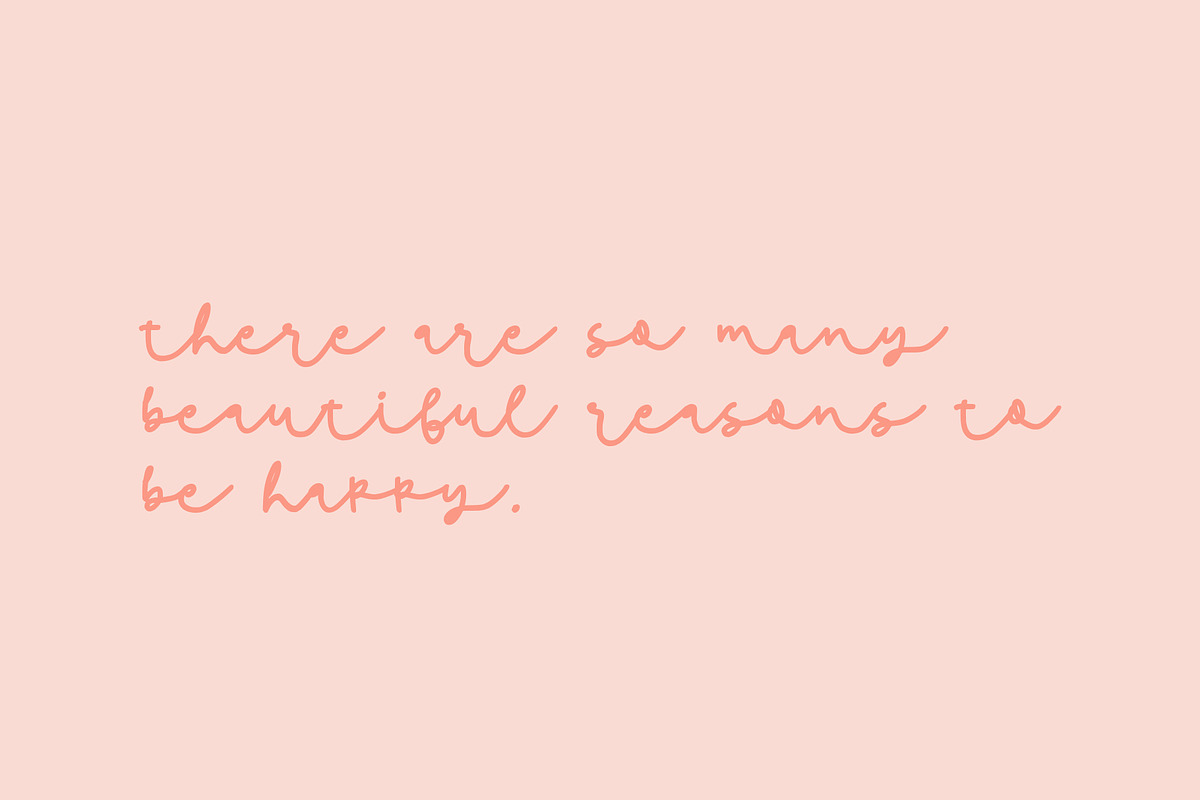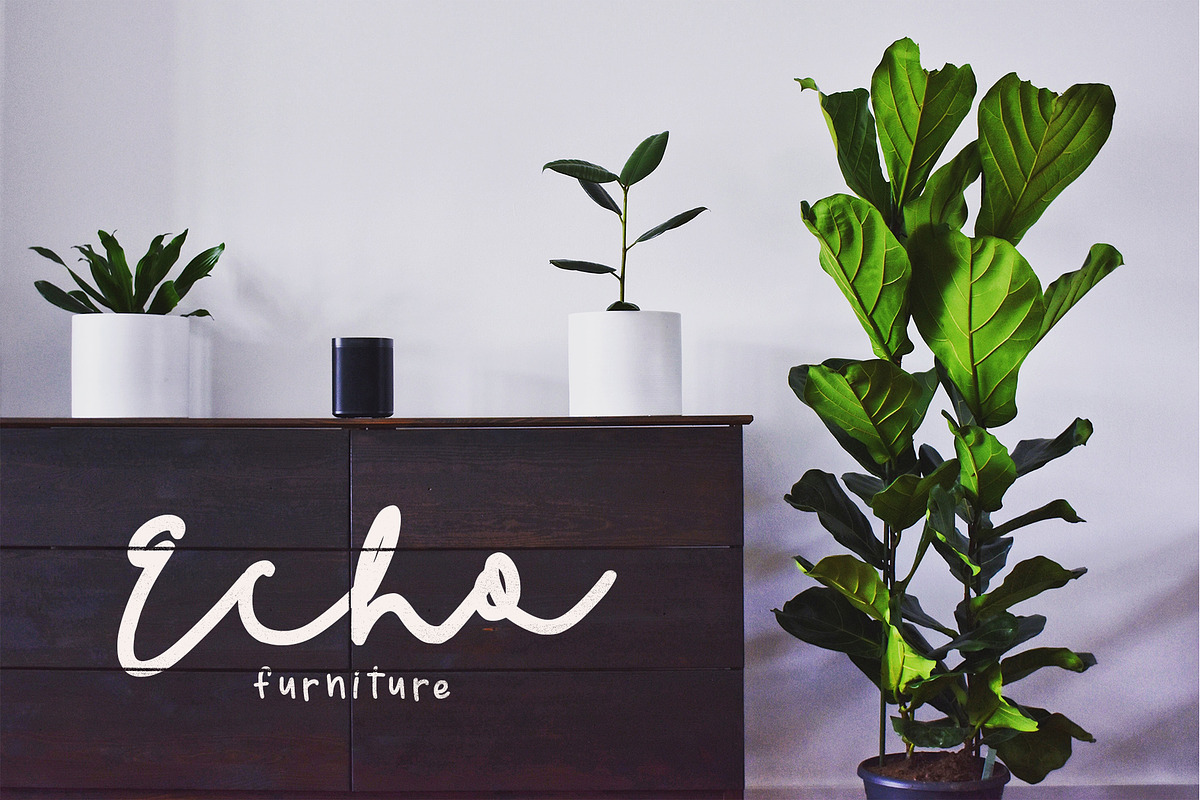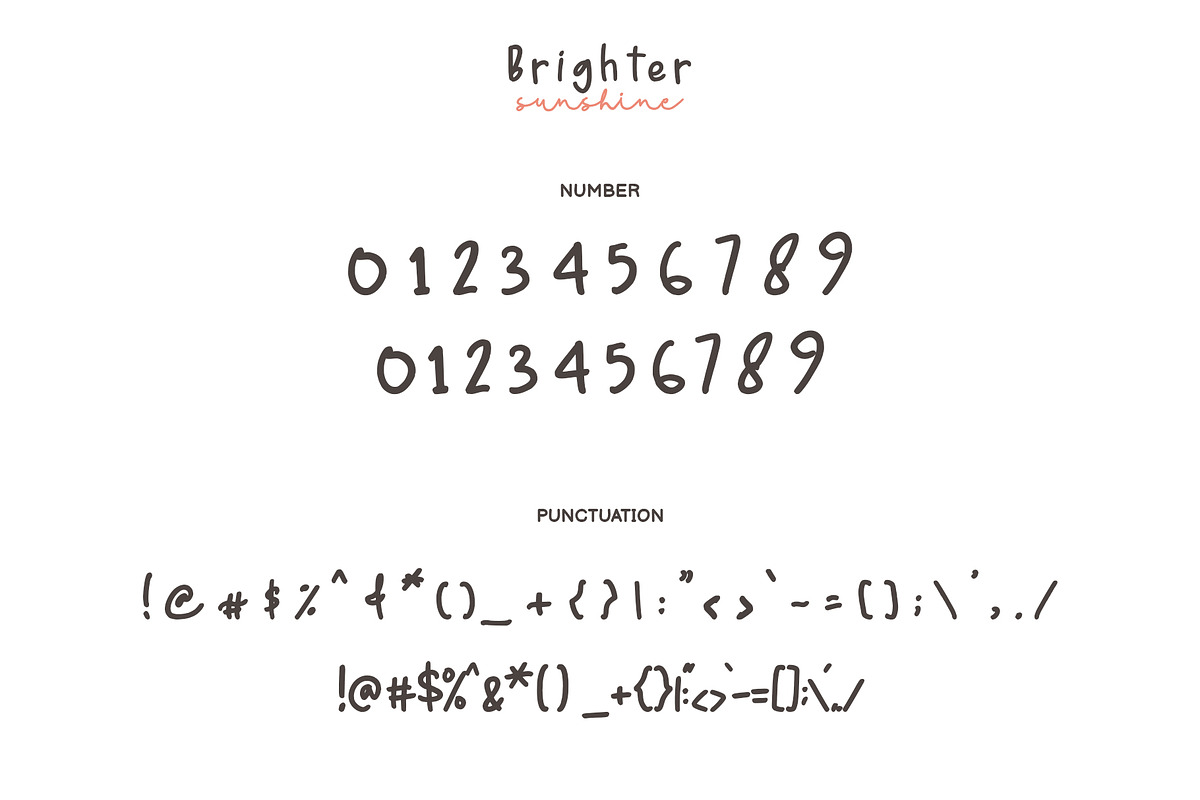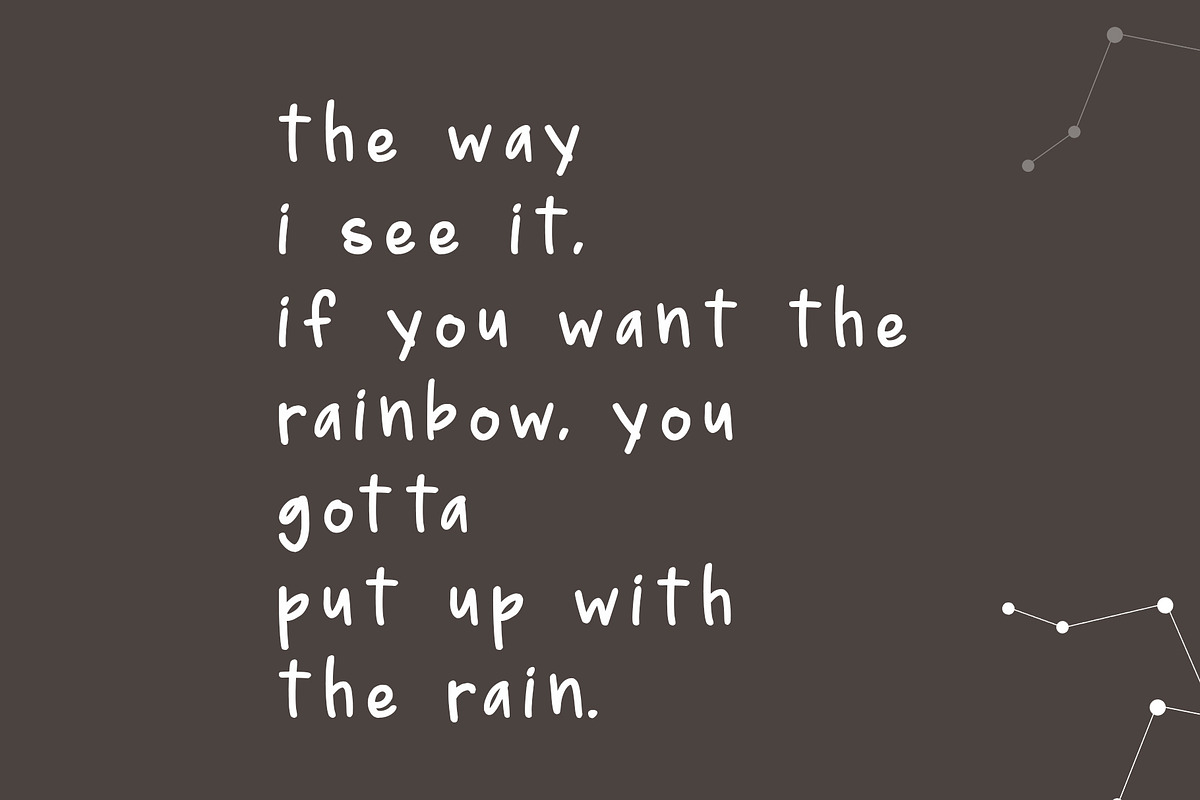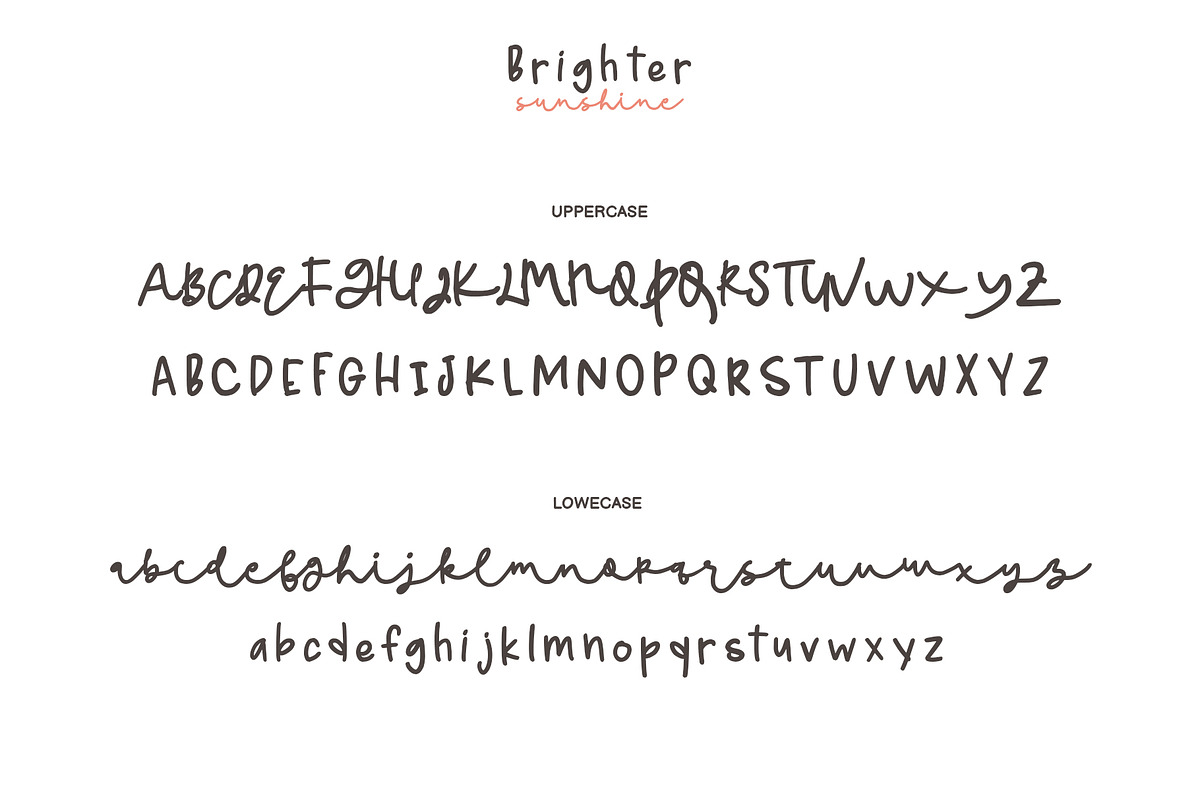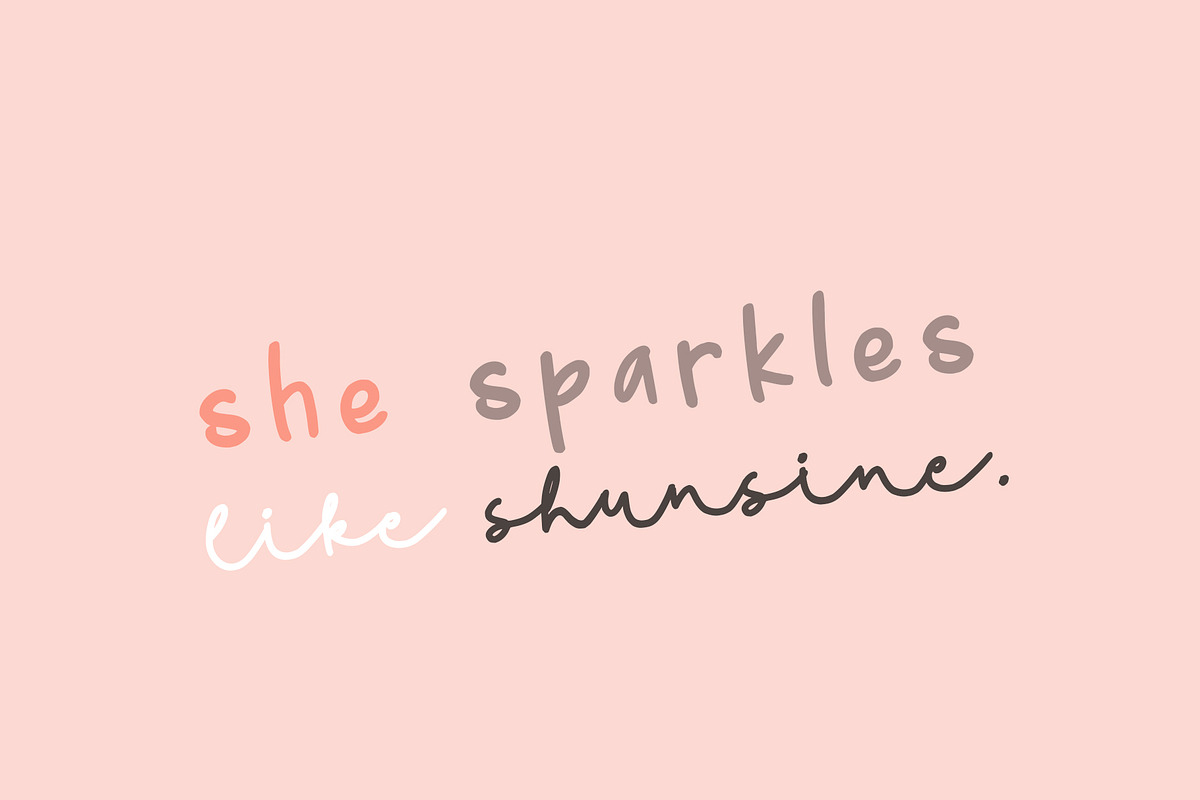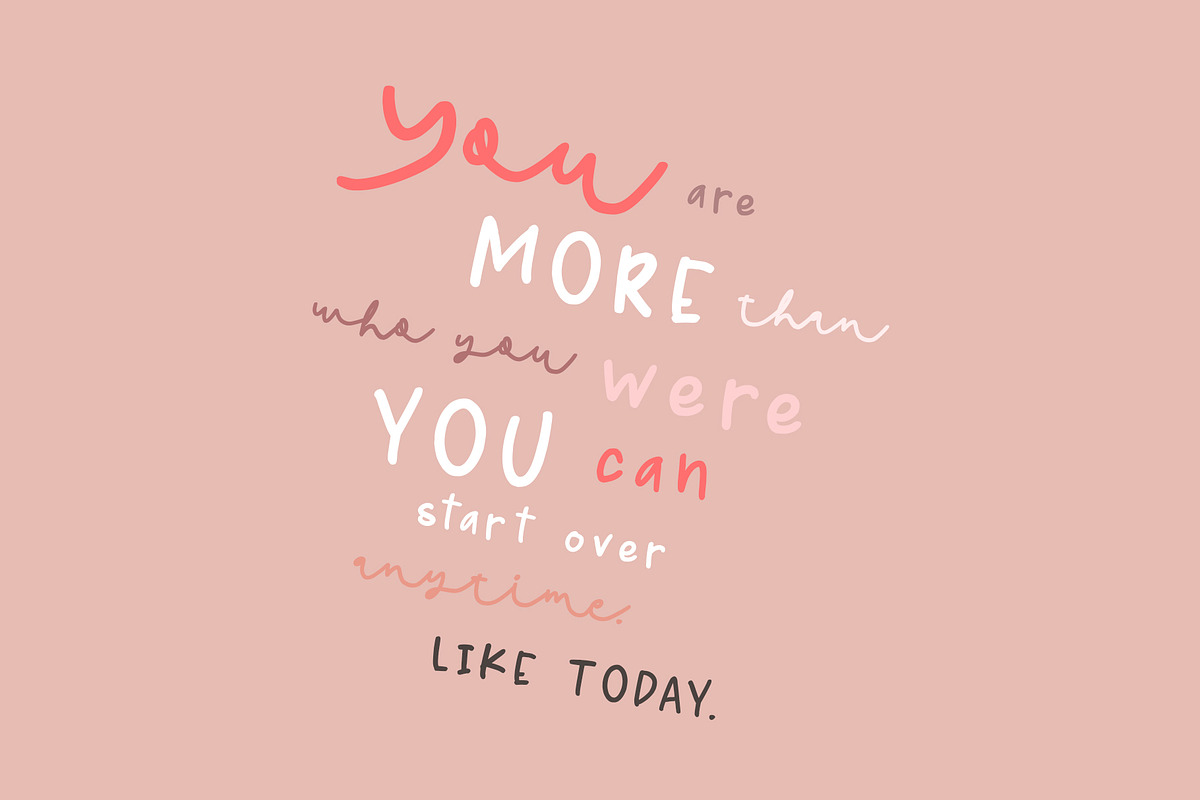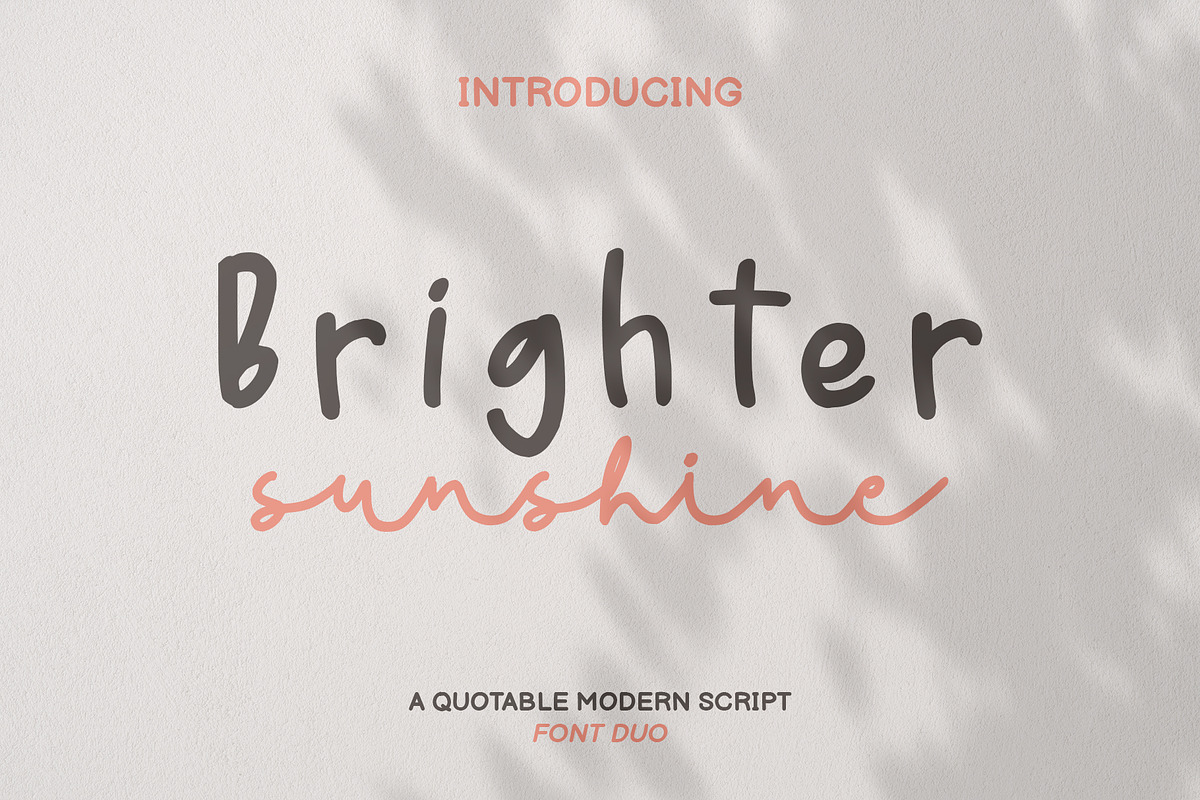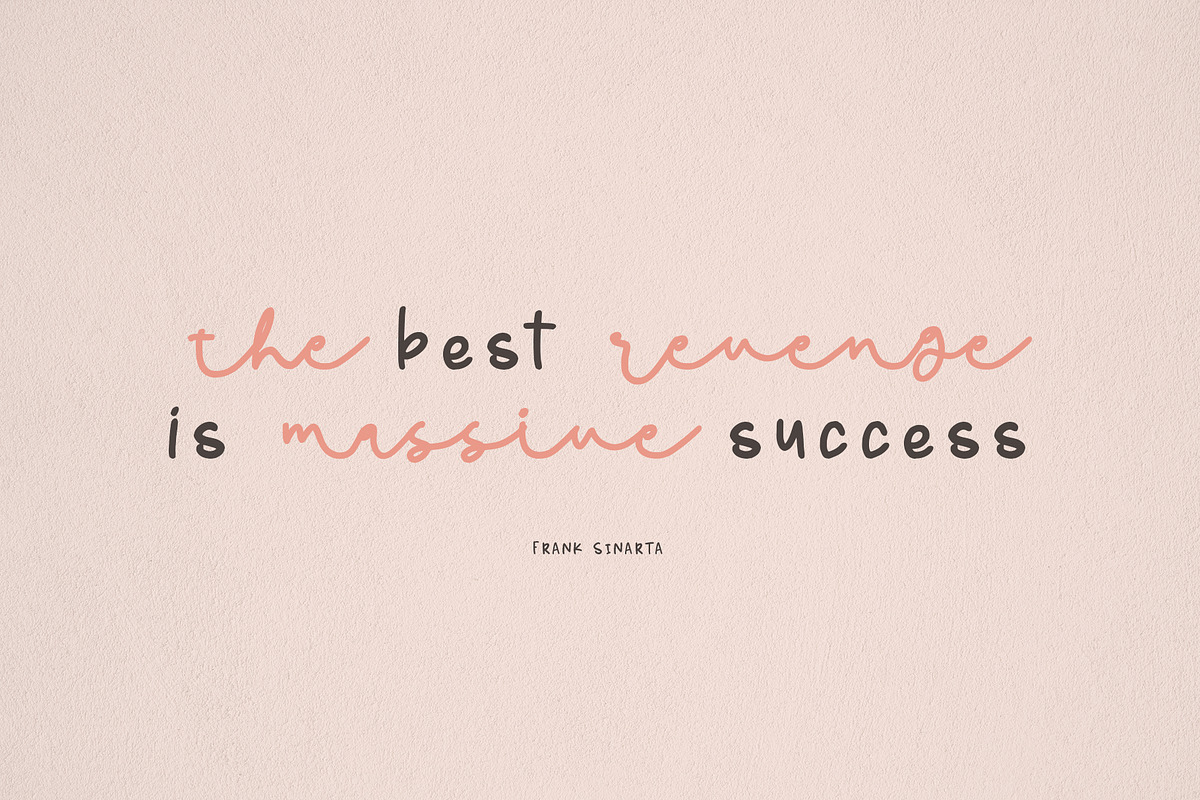
Brighter Sunshine| Quotable Font Duo
Brighter Sunshine is a new collection of display font duo. Perfect for branding, social media templates, stories, cards, posters and other designs. So sweet and lovely :)
This is such a fun new duo, perfect for creating quotes, logos, or just adding a hand-written touch to any project!
Brighter Sunshine: Uppercase letters, numbers, & punctuation
Brighter Sunshine (Sans): Lowercase letters, numbers, & punctuation